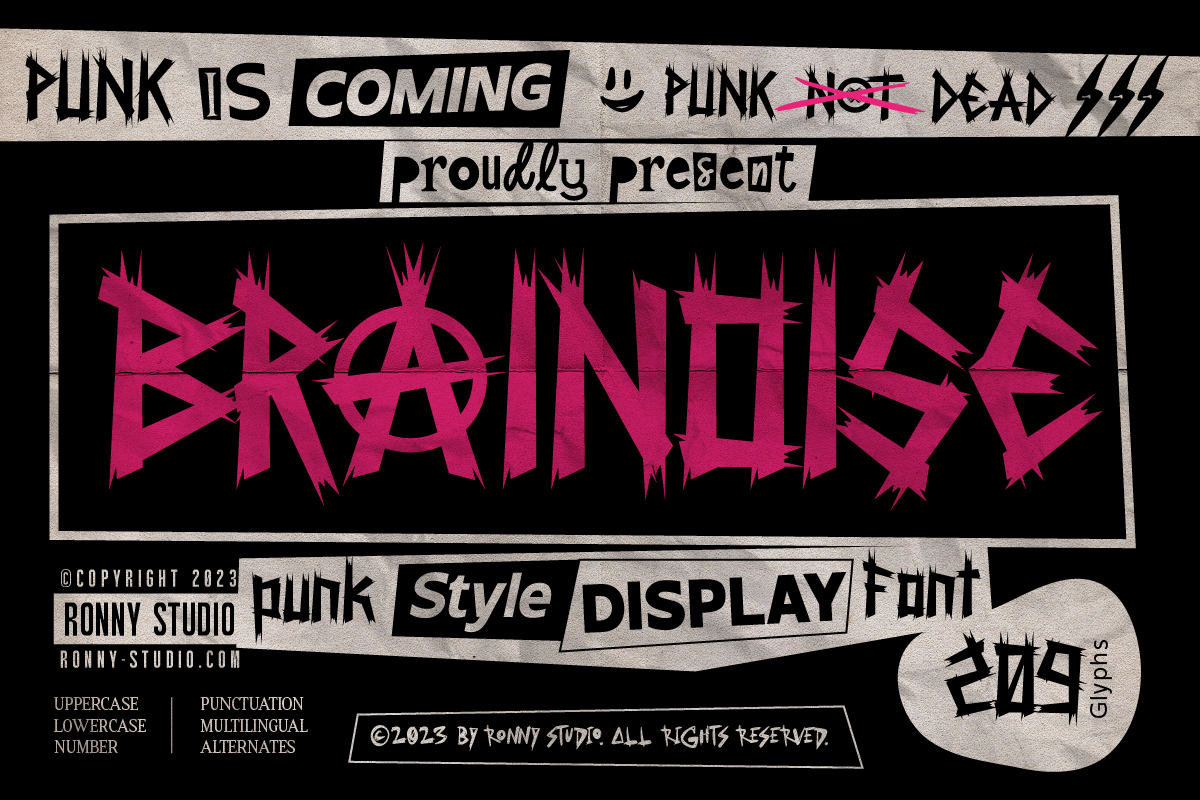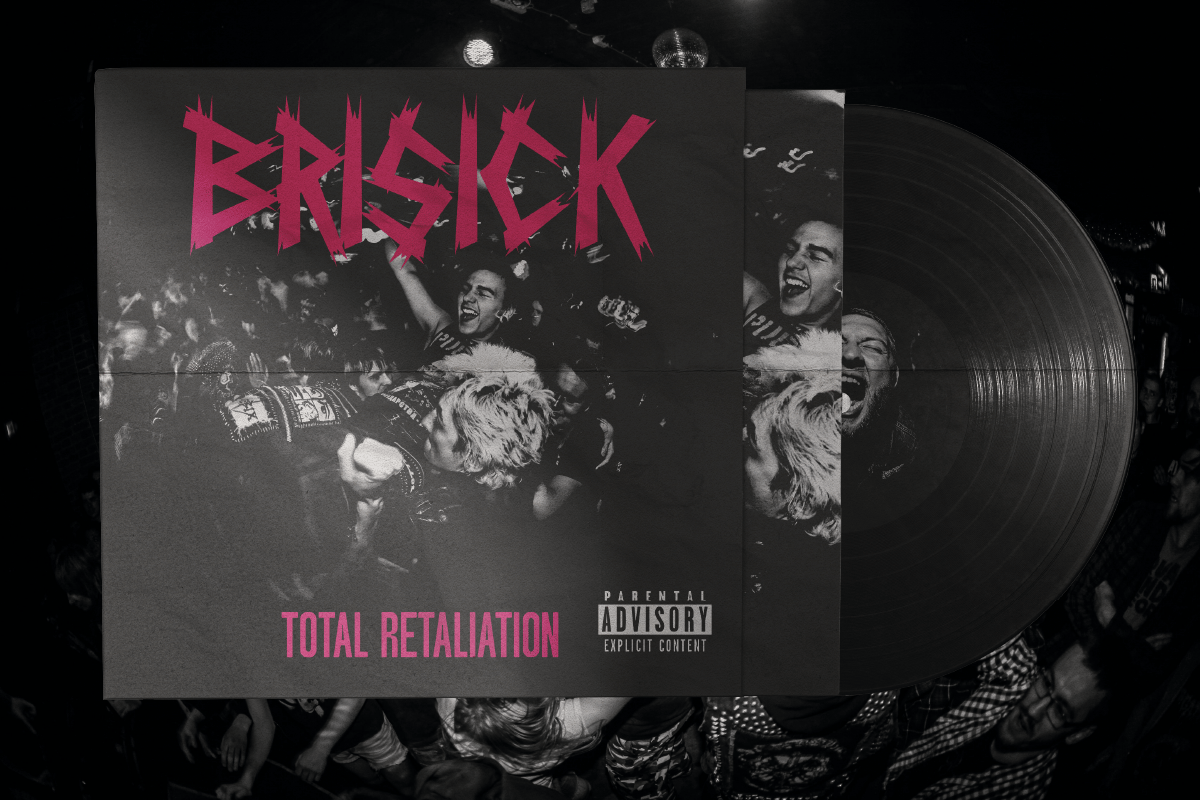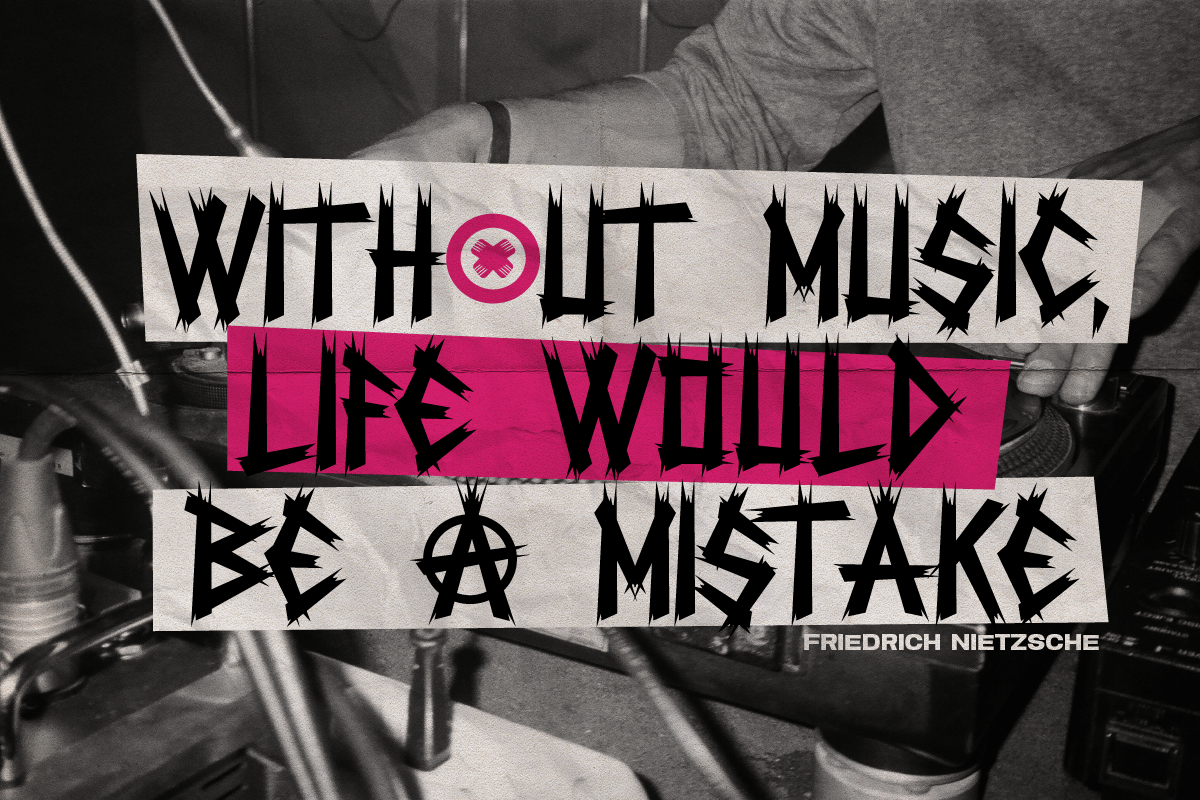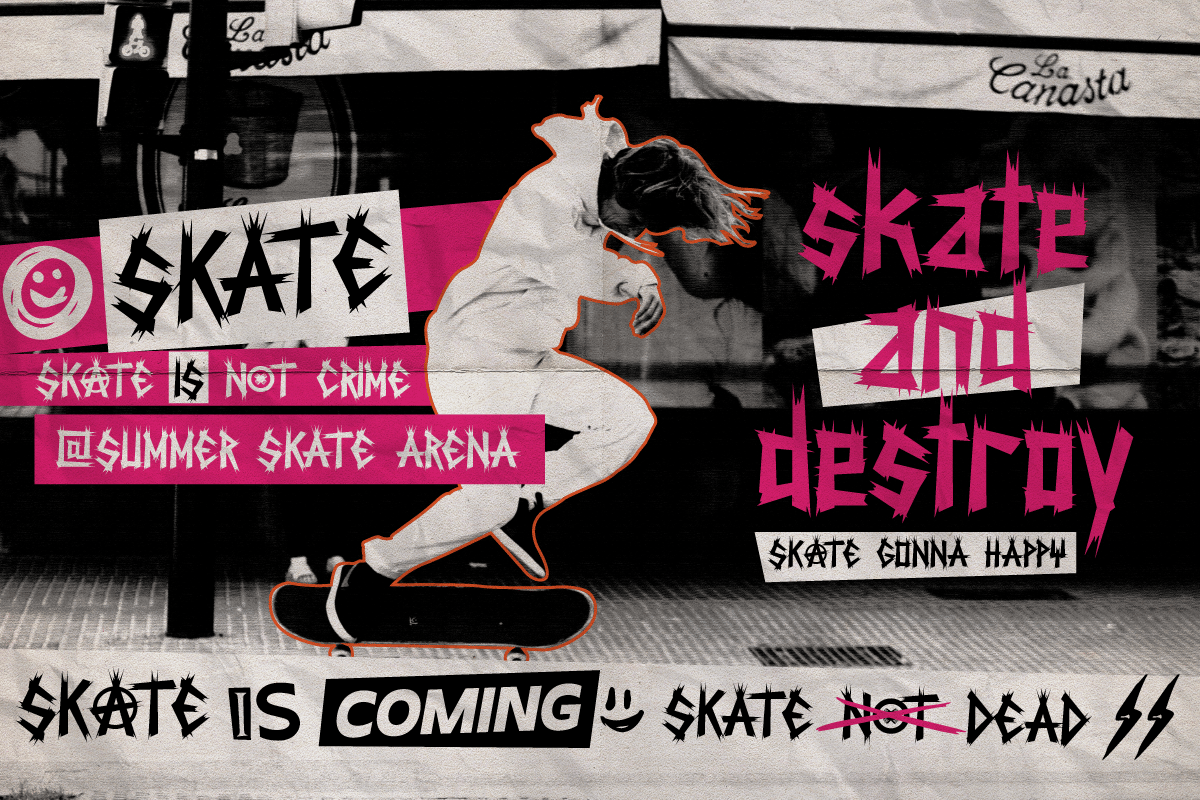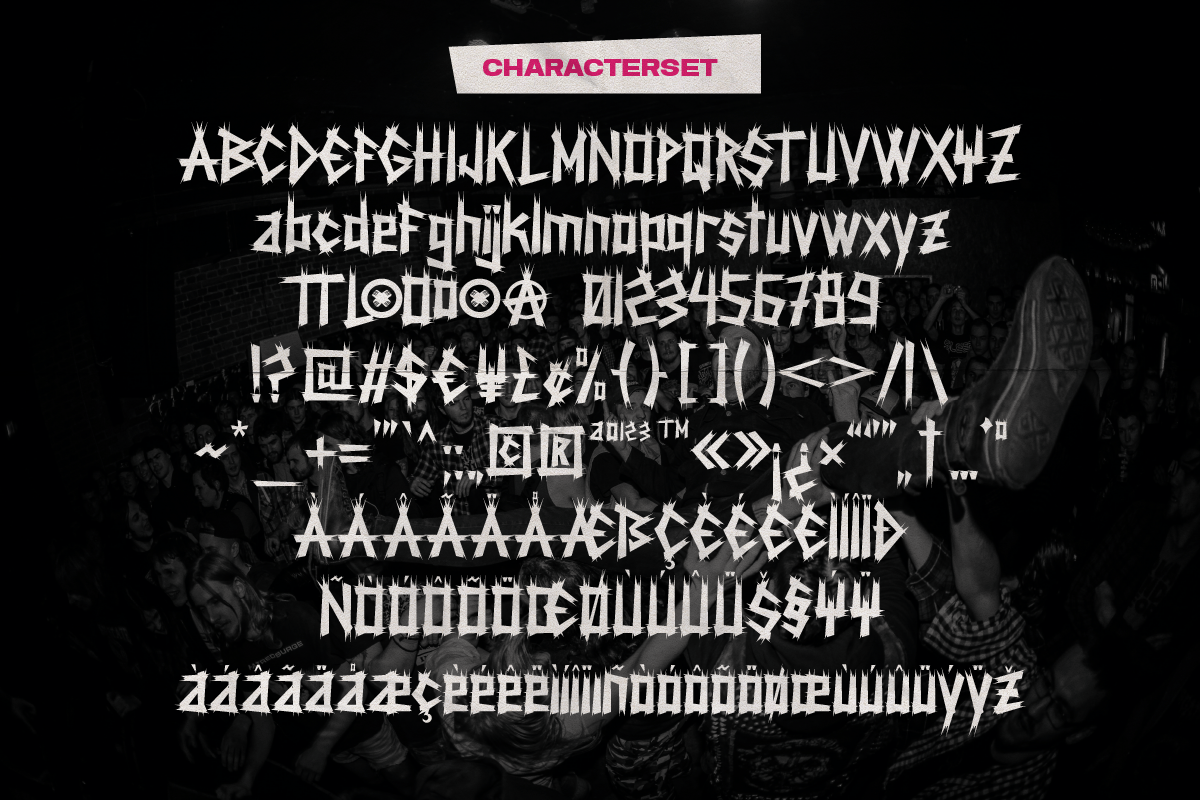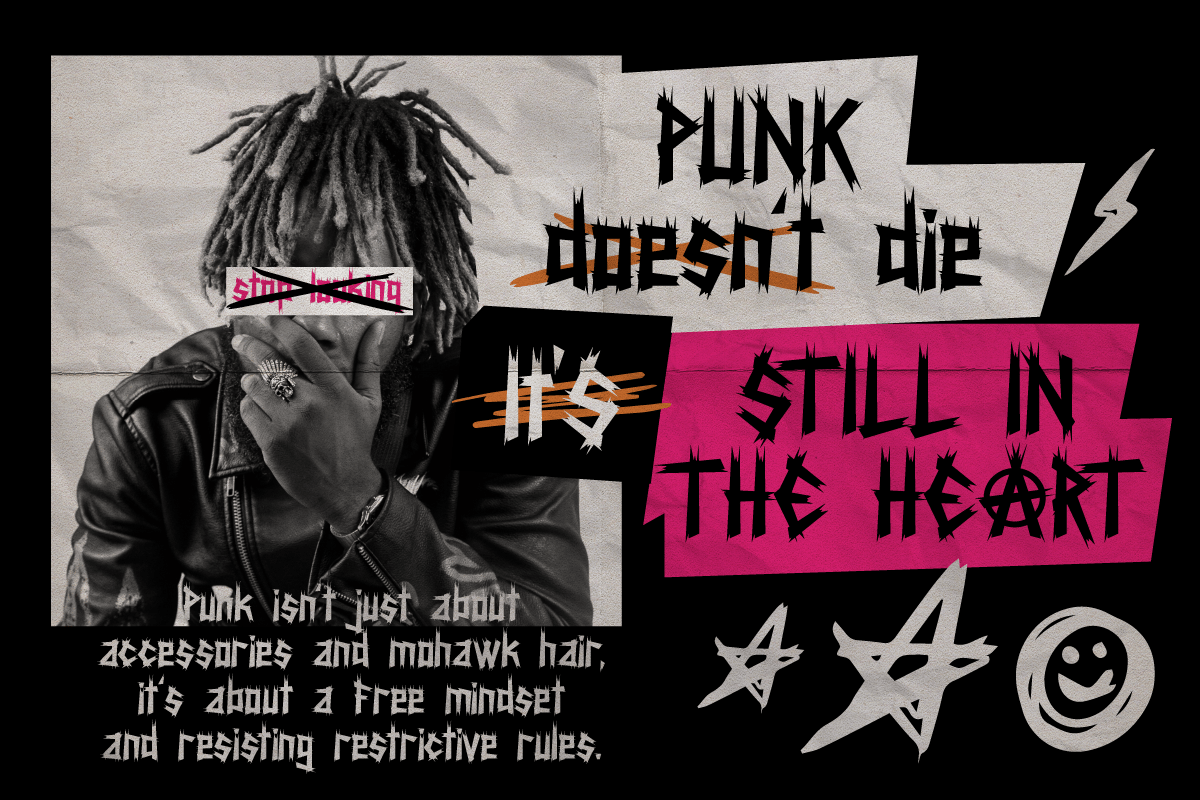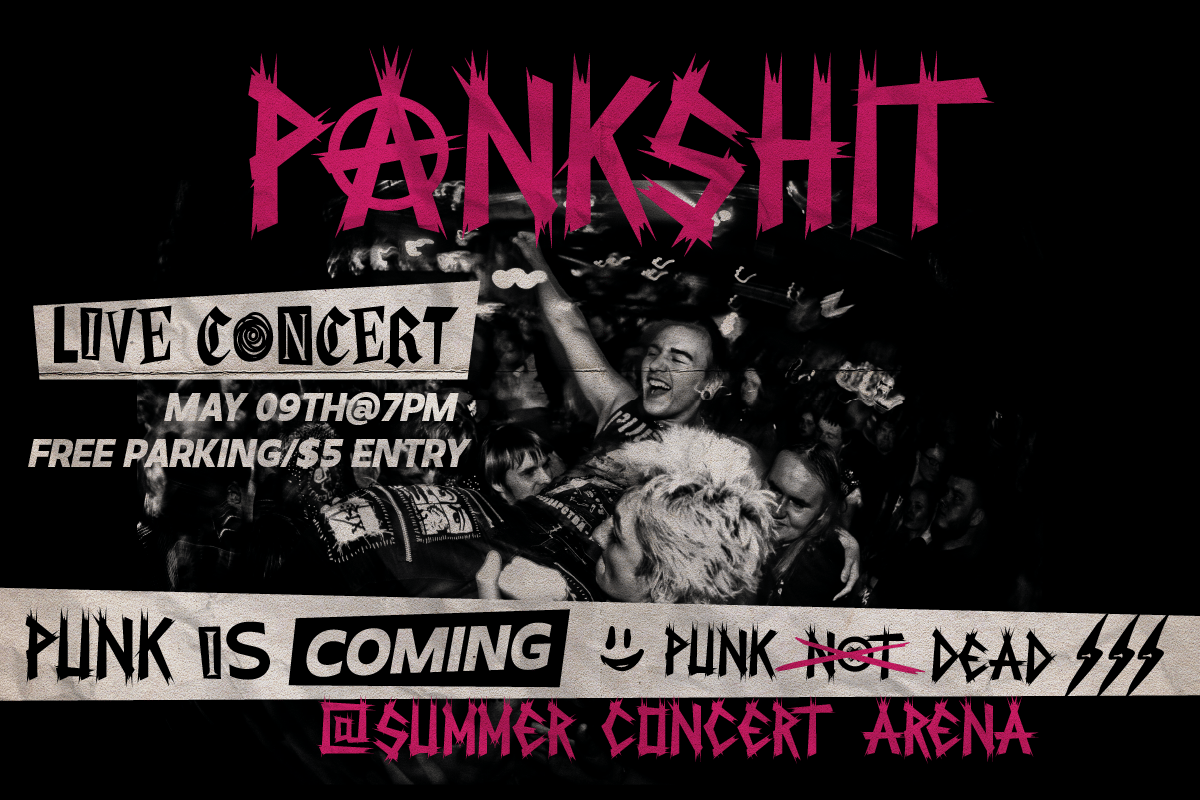
Brainoise – Punk Display Font
Punk-looking fonts usually embody the rebellious and edgy spirit of the punk subculture. It is characterized by its bold, jagged, and distorted letterforms, which often feature exaggerated or irregular shapes. This font is perfect for your design needs such as: for posters, magazines, covers, brands, logotypes, band logos, etc
- Lowercase & Uppercase
- numbers and punctuation
- alternates & Ligature
- multilingual